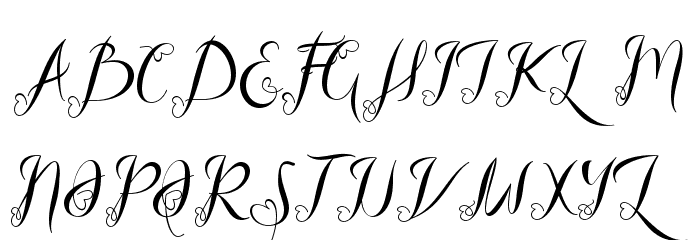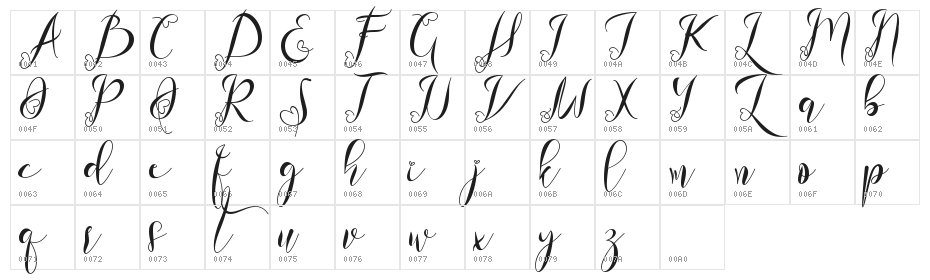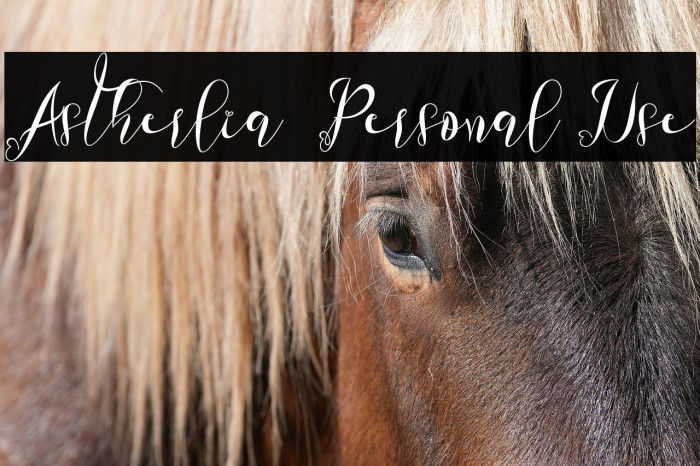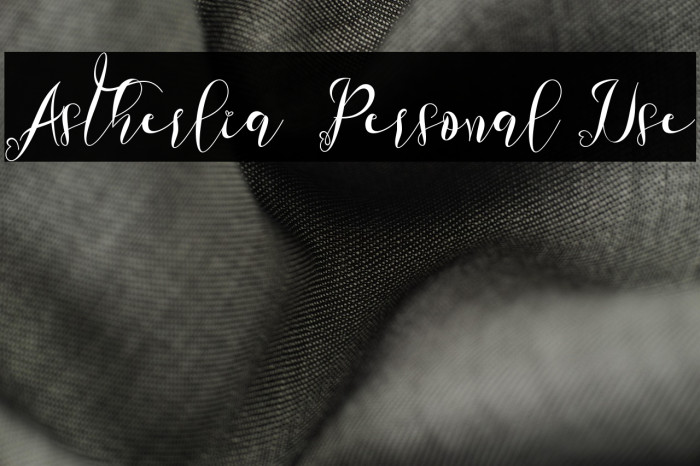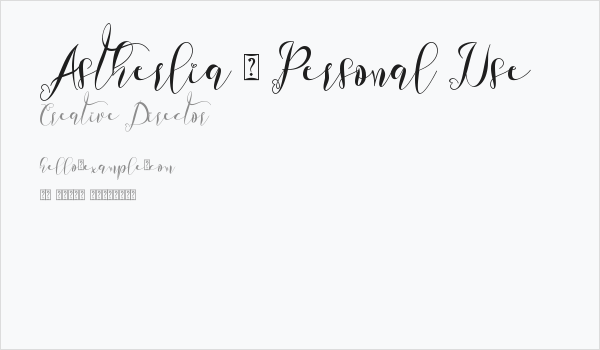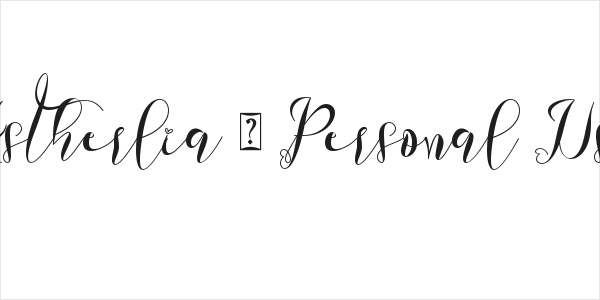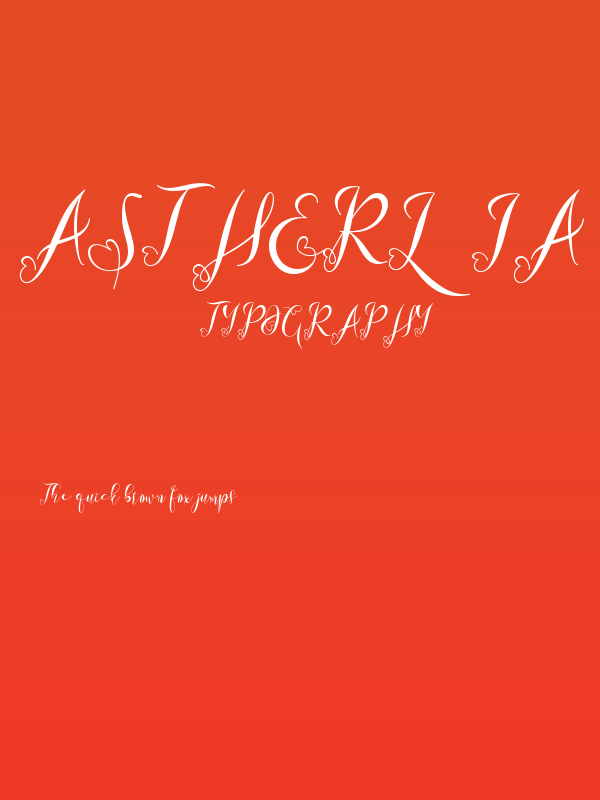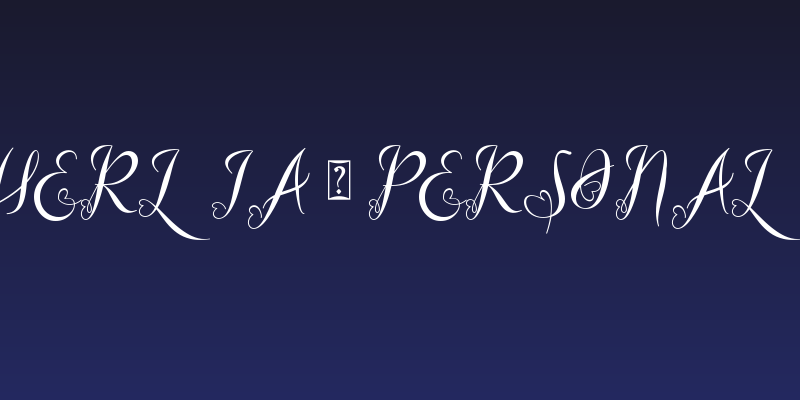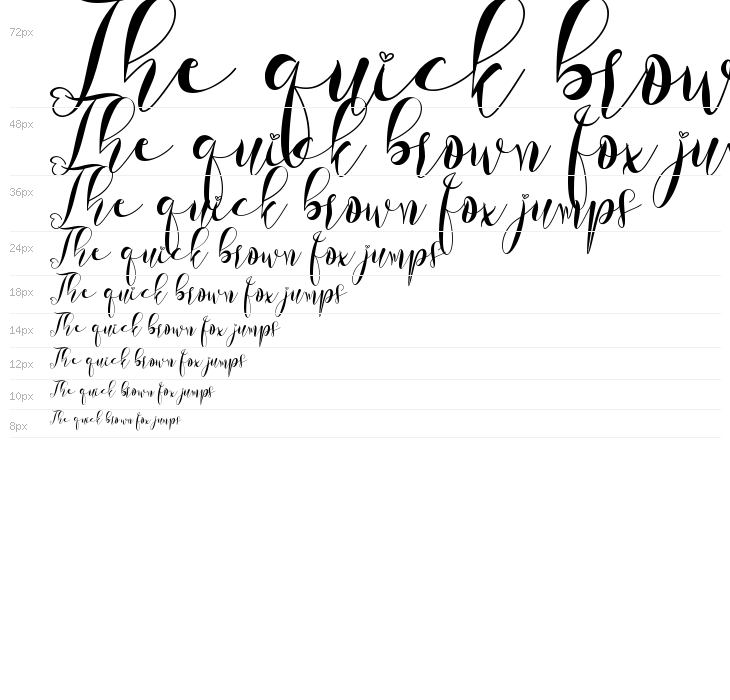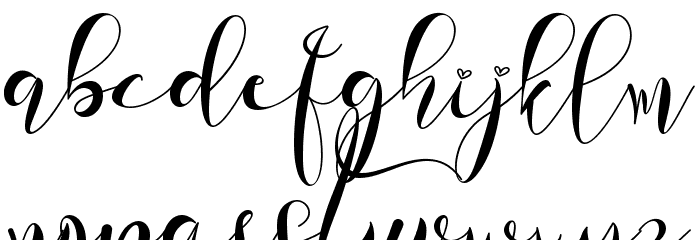
Astherlia - Personal Use Font
Astherlia - Personal Use Description
This font features an elegant and flowing script style, characterized by its intricate swirls and loops that add a touch of sophistication and romance. The uppercase letters are adorned with decorative flourishes, while the lowercase letters maintain a graceful continuity. The font's design is reminiscent of classic calligraphy, with a modern twist that makes it suitable for a variety of creative projects. Its artistic flair is evident in the way each character seamlessly connects, creating a harmonious and visually appealing text. The font's unique style makes it perfect for adding a personal and artistic touch to any design.
| Proposed Projects | Ideal for wedding invitations, greeting cards, branding, and decorative quotes. |